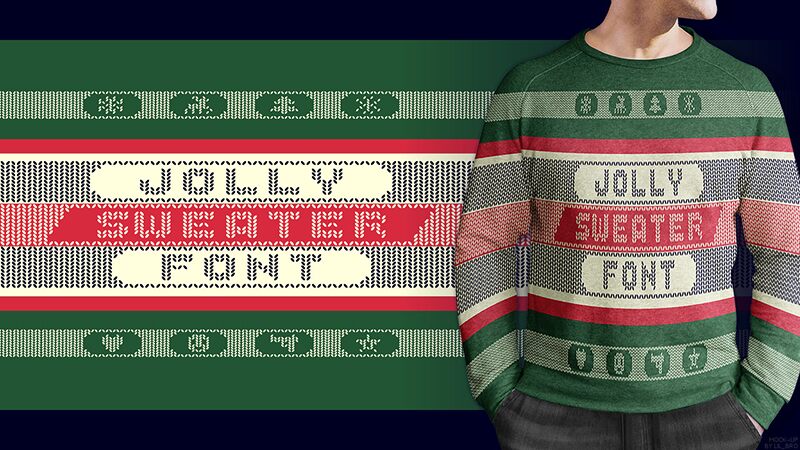
Looking for a font that will add a cozy, festive touch to your creative projects? Look no further than Jolly Sweater Bold. This unique typeface, designed by GGBotNet, captures the essence of Christmas with its knitted-style lettering and bold weight. The extra-expanded width of the letters gives it a playful and inviting feel, making it perfect for holiday-themed designs.
Jolly Sweater Bold is not just limited to Christmas cards and party invitations. Its versatility makes it suitable for a wide range of creative projects, from packaging and branding to social media graphics and website design. Whether you're aiming for a whimsical, handcrafted look or simply want to infuse some seasonal cheer into your work, this font has the potential to elevate your designs and make them stand out.
Embrace the warmth and charm of Jolly Sweater Bold in your next project and let its unique characteristics bring joy to your audience.